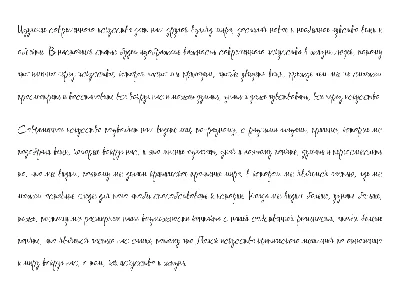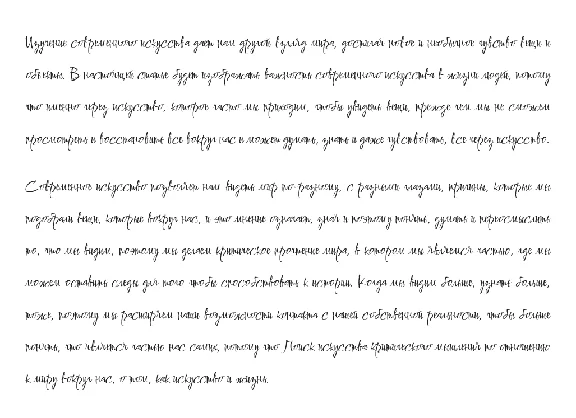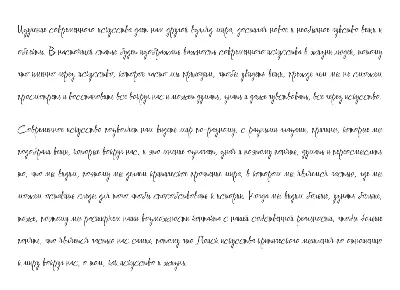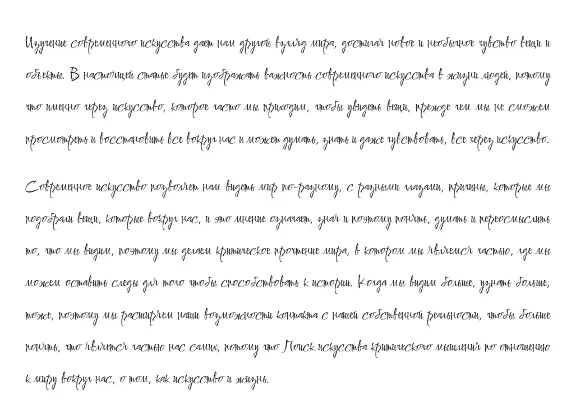
Handwritten font for students and notes v.4
This font allows you to quickly, beautifully, and efficiently fill out your notes (or create them from scratch) by printing out the necessary materials in a regular notebook. Watch how this is done on YouTube (there are instructions), this font will allow you to avoid creating it from scratch for ridiculous money and start printing in just a couple of minutes.